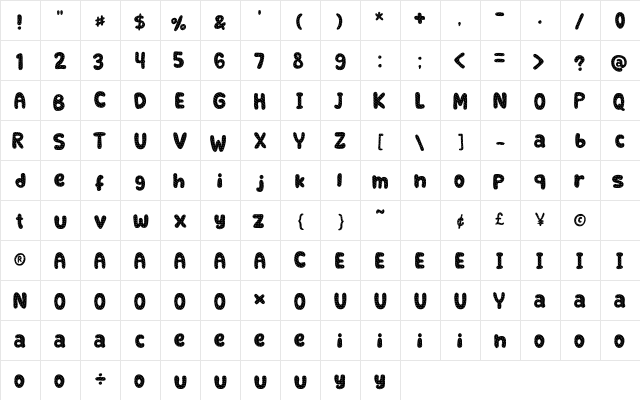
Retrofield DemoTextured
Design Context for Retrofield Typeface
Retrofield has the warm character of retro typography — evoking diners, record sleeves, and the golden age of print advertising.
Font Pairing: Combine Retrofield with a simple slab or neutral sans — period-accurate companions reinforce the vintage feel without competing for attention.
Pro Tip: Lean into Retrofield's period character by pairing it with aged paper textures, muted colour palettes, and vintage illustration styles.